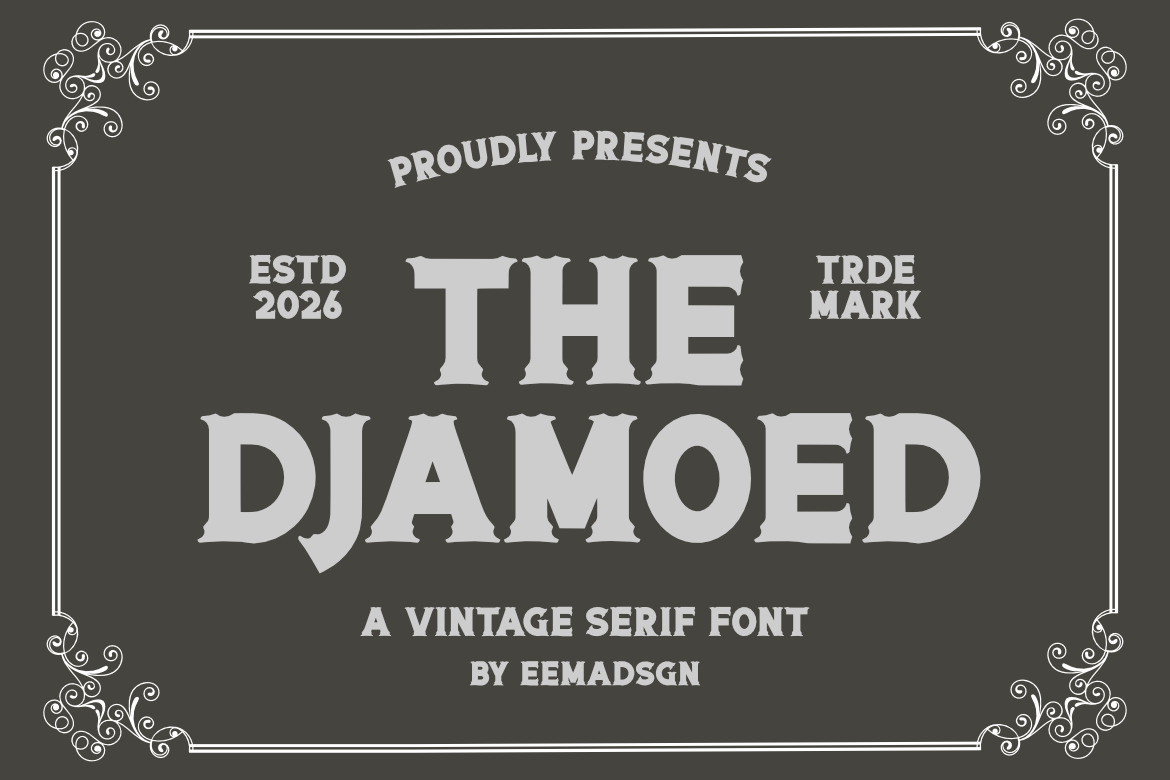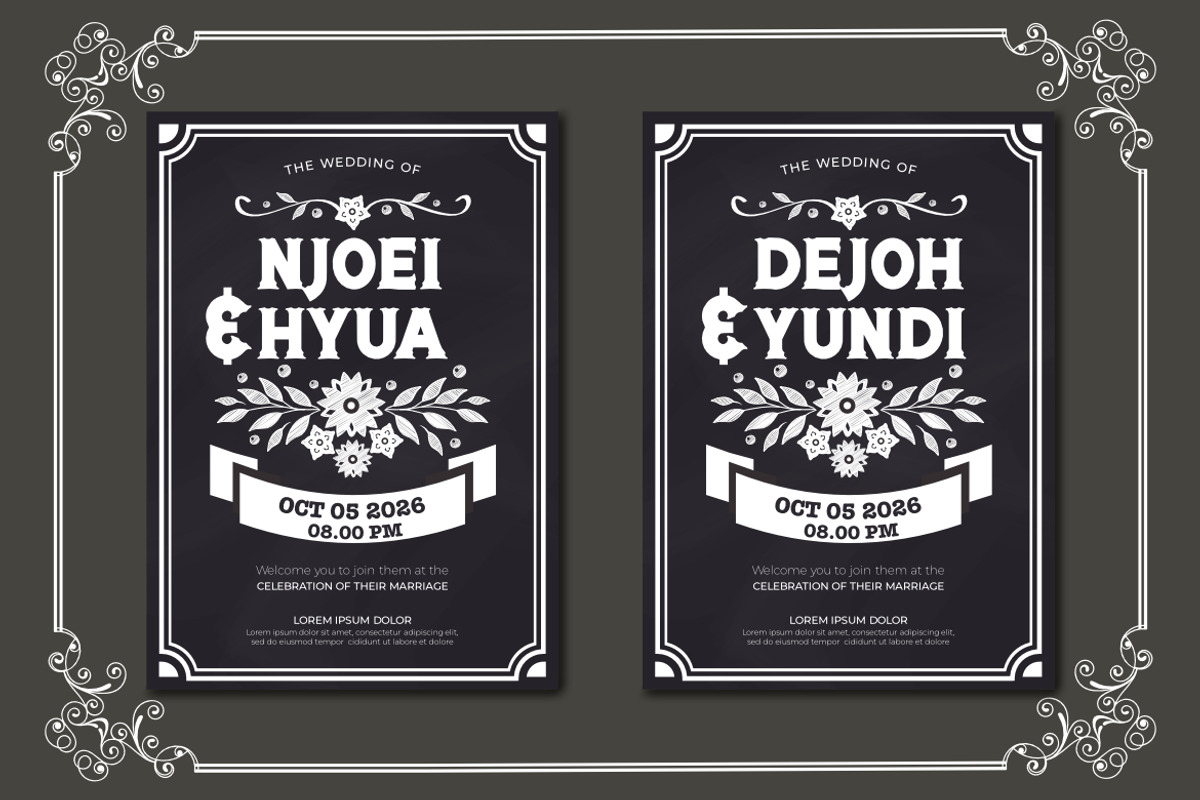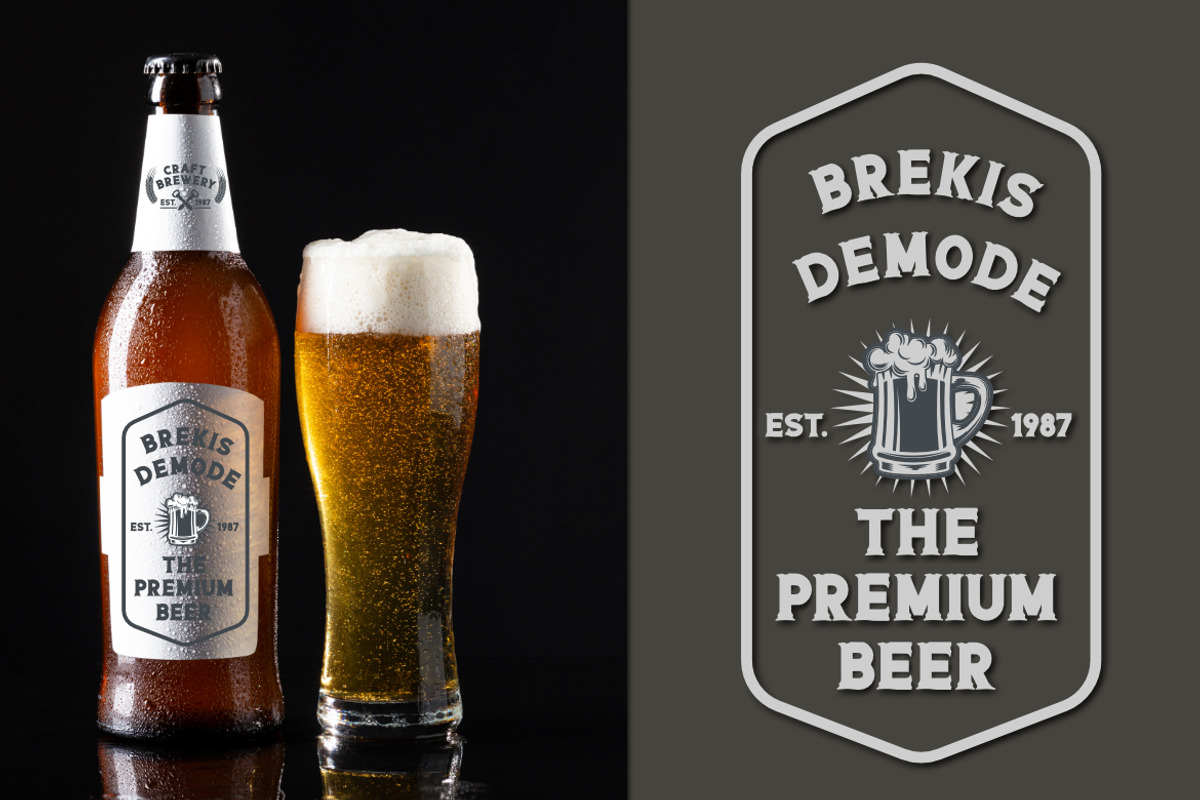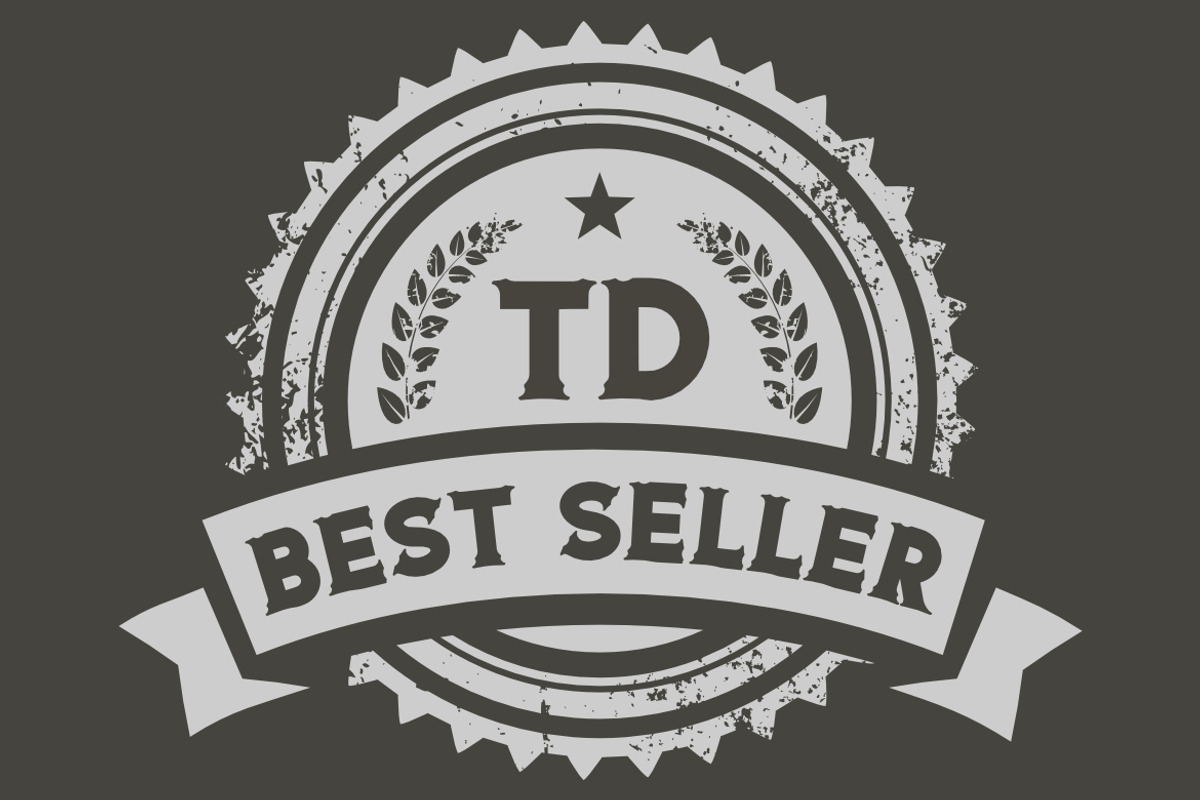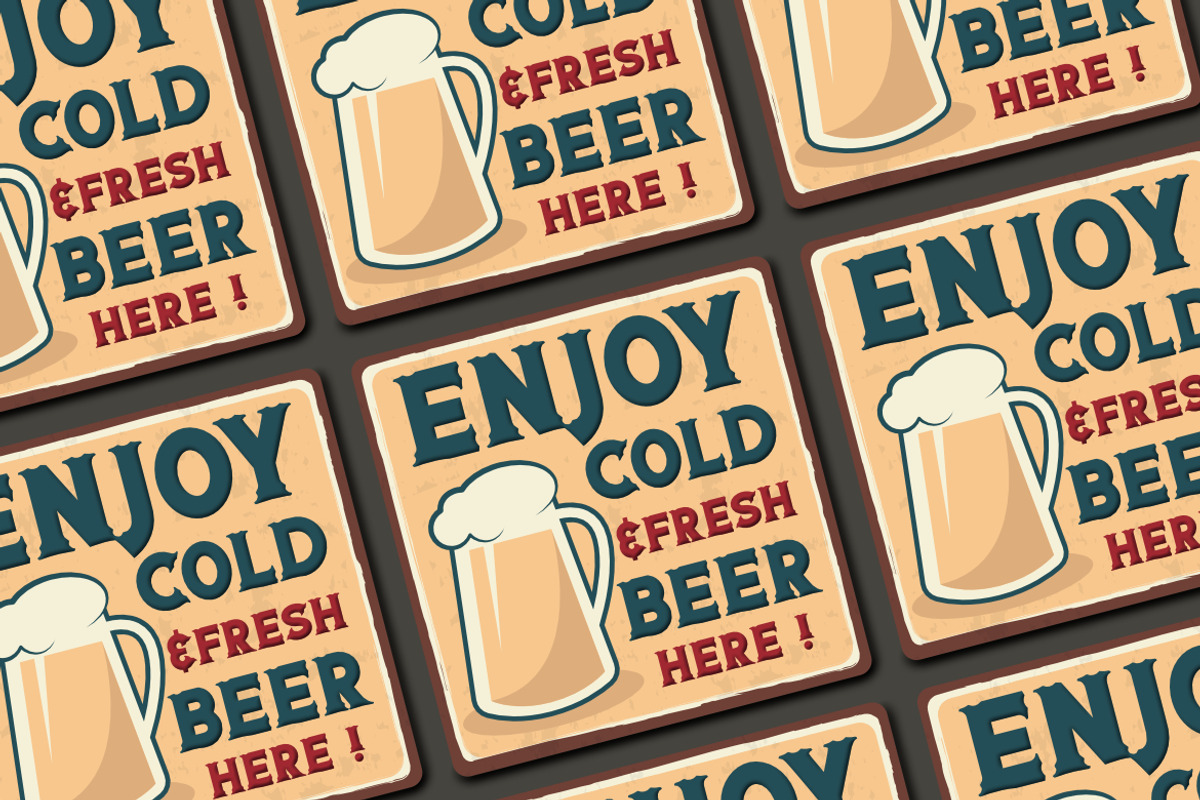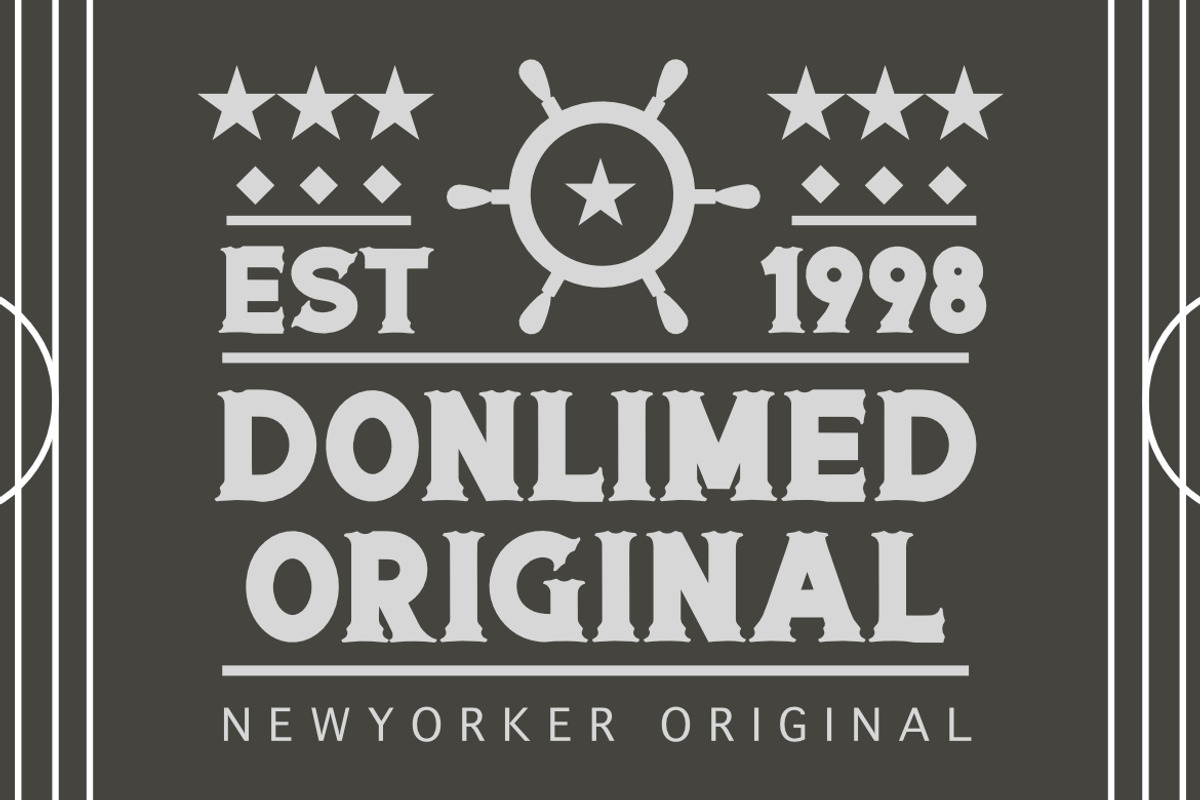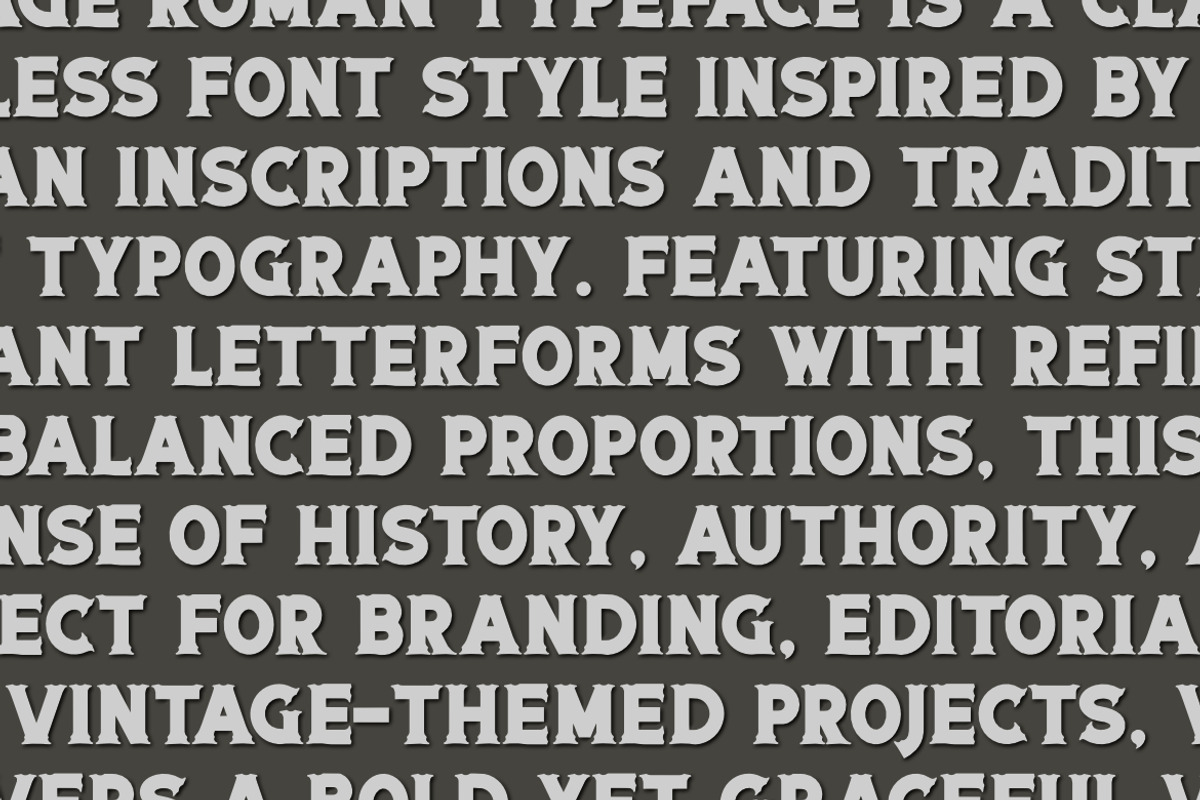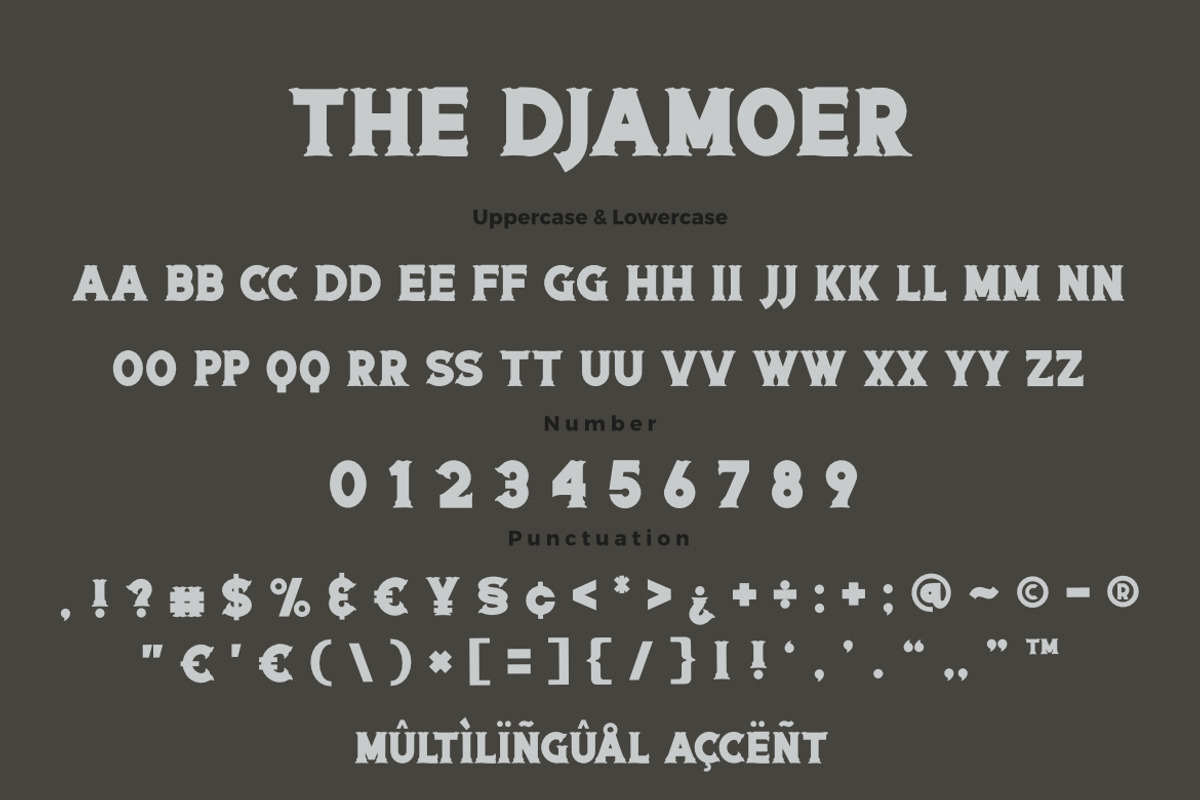
The Djamoed a Vintage Serif Font
The Djamoed a Vintage Serif Font is a bold and timeless display typeface inspired by classic Roman lettering and vintage typography aesthetics. Featuring strong serifs, sharp edges, and structured letterforms, this font delivers a powerful and authoritative visual presence rooted in historical elegance.
Designed with a classic vintage touch, The Djamoed brings a sense of tradition, craftsmanship, and sophistication. Its balanced proportions and distinctive character shapes make it perfect for creating designs that feel both nostalgic and premium. The font captures the essence of old-world signage, heritage branding, and Roman-inspired inscriptions with a modern refinement.
Each letter is carefully crafted to maintain readability while preserving its bold decorative style, making it highly effective for impactful headlines and standout typography compositions.
Perfect for both digital and print use, The Djamoed is ideal for projects that require a strong vintage identity, classic elegance, and timeless appeal.
Key Features :
- Uppercase & Lowercase Characters
- Classic Roman Serif Style
- Bold & Strong Letterforms
- Vintage Decorative Elements
Suitable For :
- Vintage Branding & Logos
- Posters & Headlines
- Heritage & Classic Designs
- Packaging & Product Labels
- Barbershop & Retro Shops
- Editorial & Print Design
- Signage & Display Typography
With The Djamoed a Vintage Serif Font, your designs gain a bold classical presence, refined vintage character, and a timeless Roman-inspired aesthetic — perfect for projects that aim to be strong, elegant, and rich in historical charm.